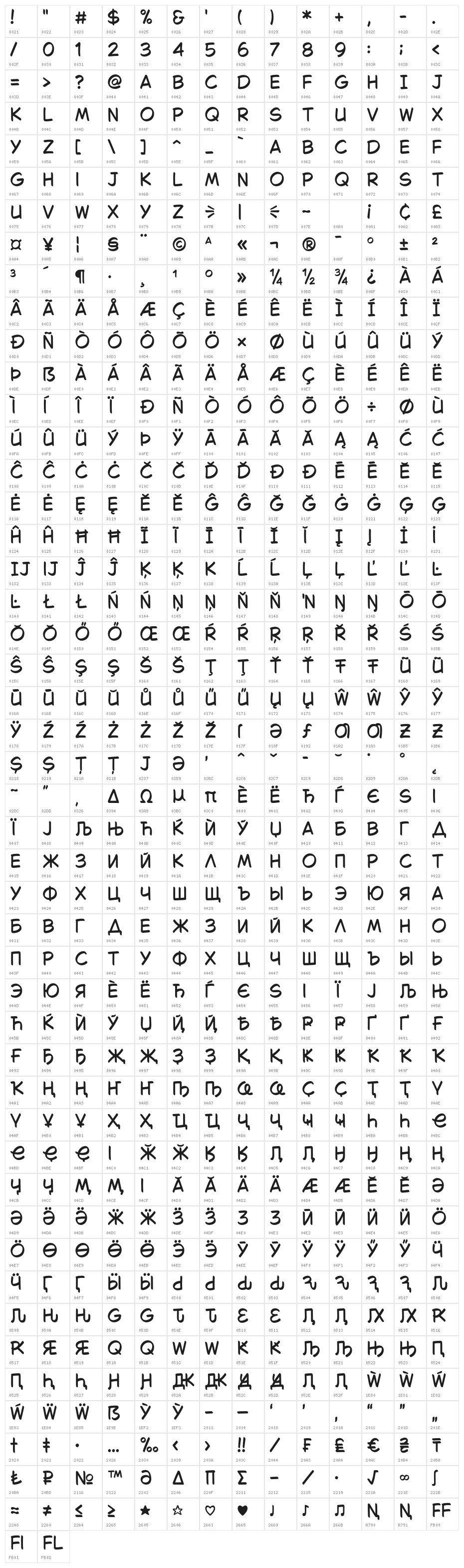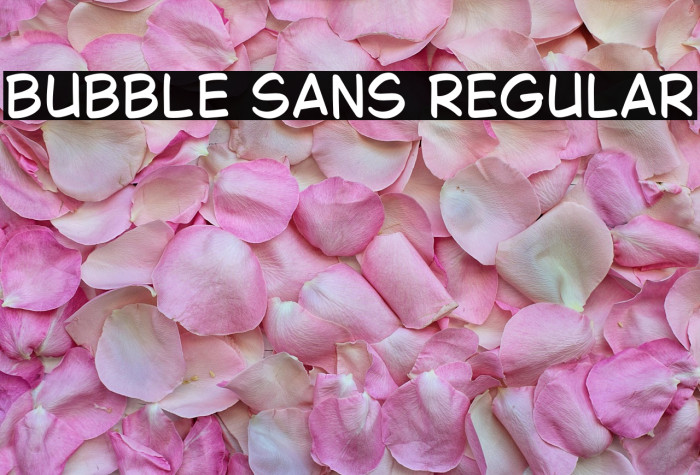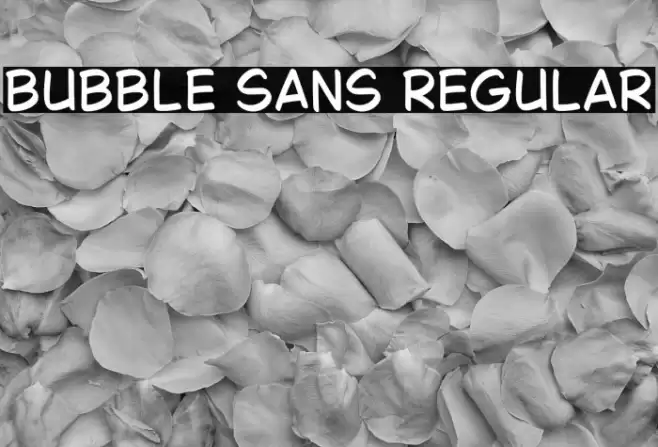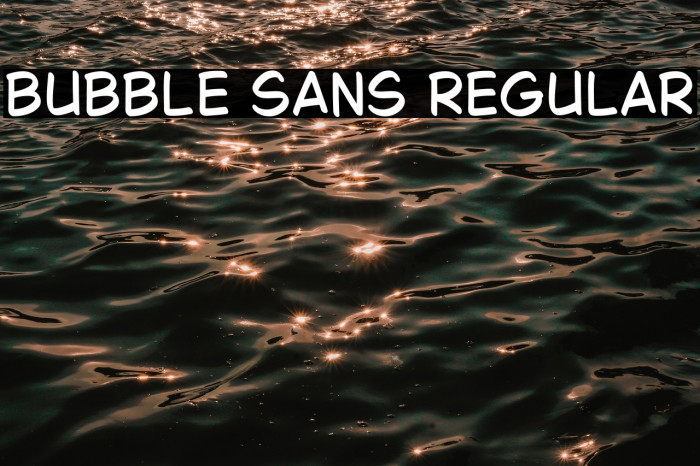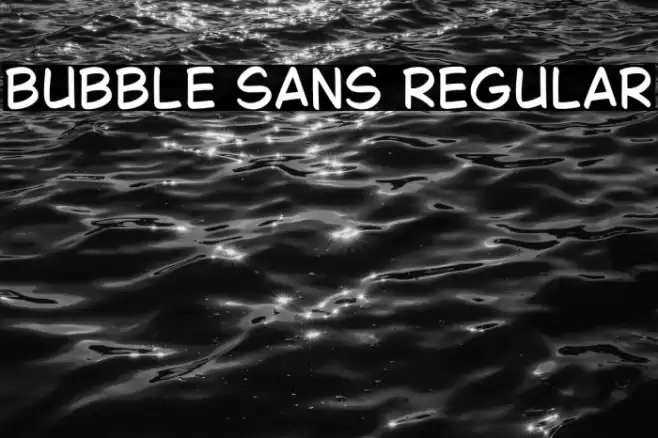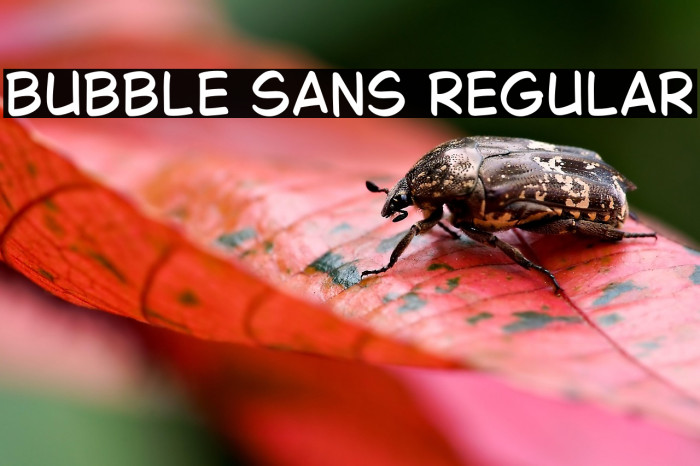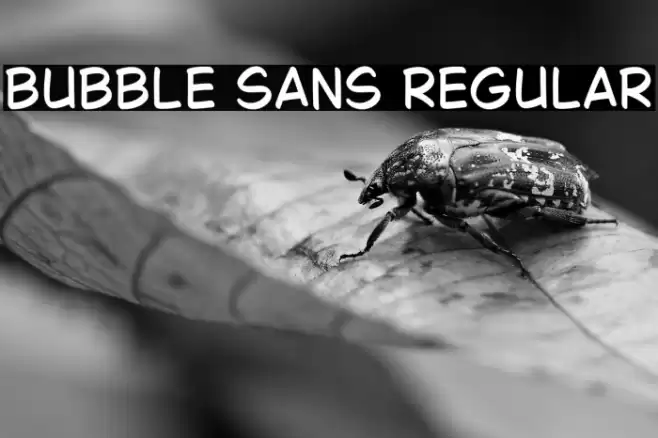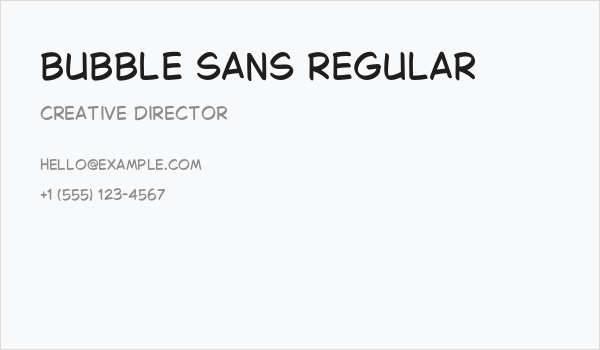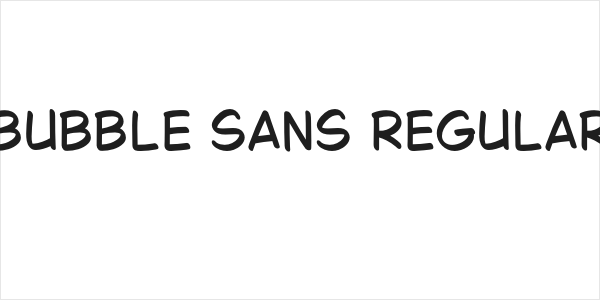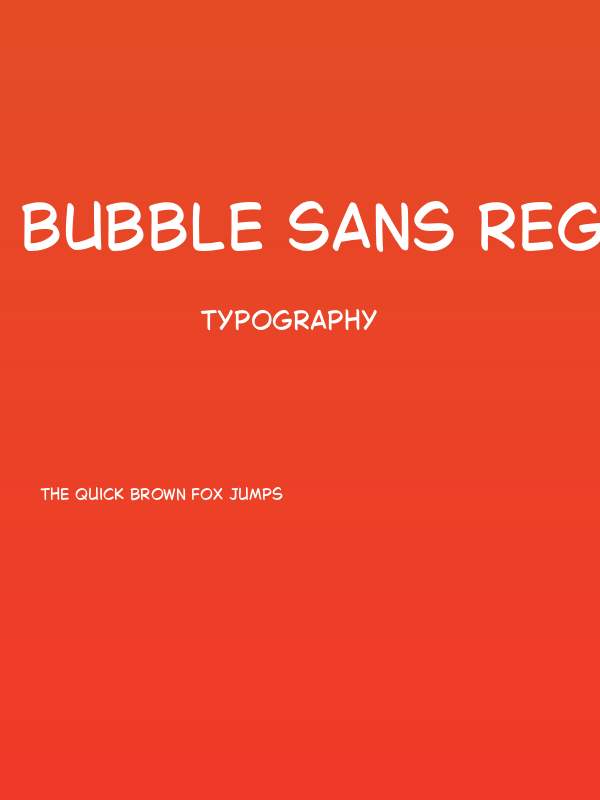
Bubble Sans Regular Font
Bubble Sans Regular Description
This font features a playful and rounded style, reminiscent of hand-drawn lettering. The characters are bold and have a consistent thickness throughout, giving them a uniform appearance. The rounded edges and bubbly form create a friendly and approachable look, making it suitable for casual and informal designs. The spacing between characters is balanced, ensuring readability while maintaining the font's whimsical charm. This style is ideal for projects that require a fun and engaging visual element.
| Proposed Projects | Ideal for children's books, playful branding, party invitations, and casual social media graphics. |